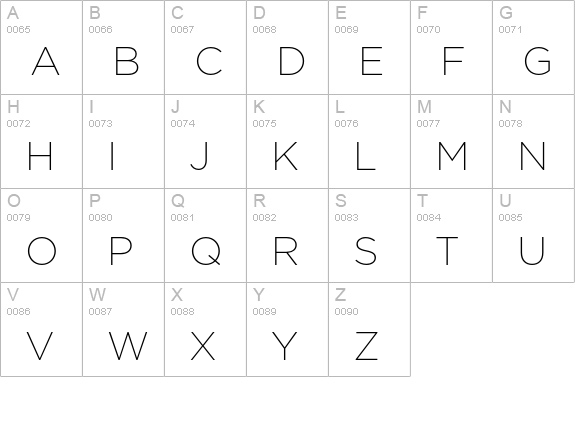
Gotham Extra Light is a refined, elegant variant in the Gotham typeface family \xE2\x80\x94 well suited to elegant body text, refined sub-headings, and luxury branding.
Gotham Extra Light font is a modern and elegant typeface that exudes sophistication and simplicity. Its sleek and clean design makes it perfect for a wide range of creative projects, from branding to editorial design. The thin strokes and rounded edges of this font give it a delicate and refined appearance that adds a touch of class to any text. What makes Gotham Extra Light font even more appealing is that it is available for free download at FontsMarket.com. This means that you can easily access this high-quality font without any cost, making it a valuable addition to your design resources. Whether you're working on a website, a magazine layout, or a branding project, Gotham Extra Light font is a versatile choice that will elevate your design with its timeless beauty.